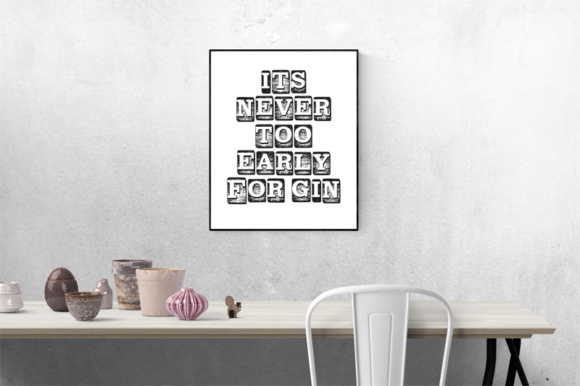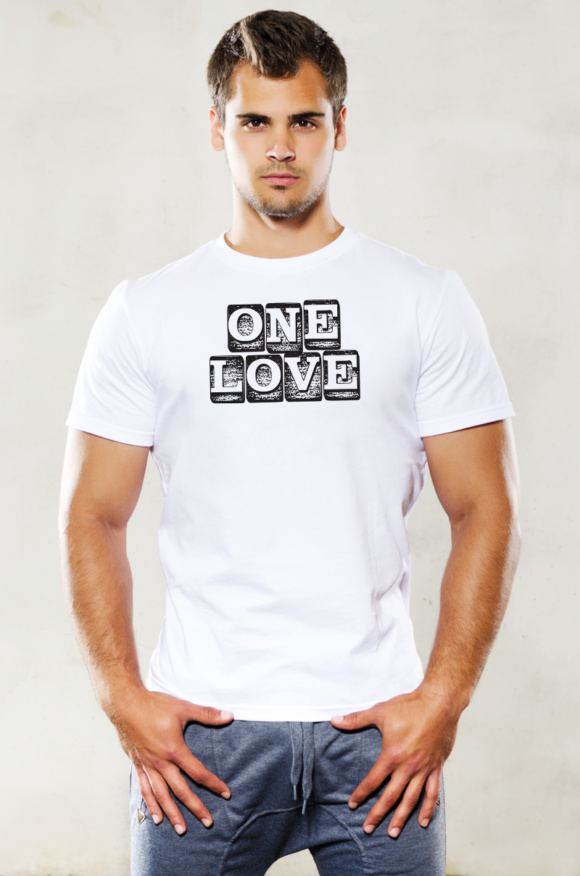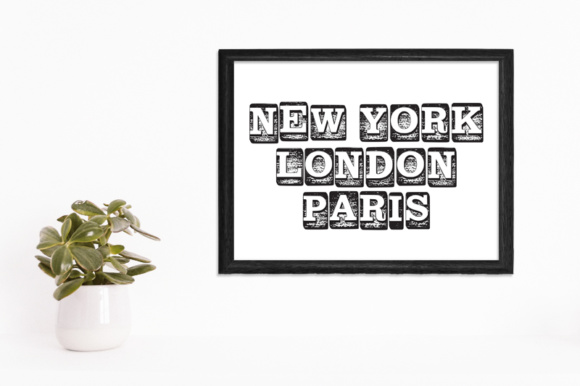
Introducing Blockletters Font: The Bold and Impactful Typeface Inspired by Printers Fonts
Are you looking for a font that makes a statement? Do you want to add a touch of vintage flair to your designs? Look no further than Blockletters Font, a bold and impactful typeface that is influenced by traditional printers fonts. With its rough and inky texture, Blockletters is perfect for creating eye-catching posters, logos, and other visual materials that demand attention.
The Inspiration Behind Blockletters
Blockletters Font draws inspiration from the classic printers fonts of the past, with a modern twist. The font’s blocky, chunky letters are reminiscent of the bold and sturdy typefaces used in vintage posters and advertisements. The rough, inky texture of Blockletters adds a layer of authenticity to your designs, giving them a tactile, hand-crafted feel that is sure to resonate with your audience.
Key Features of Blockletters Font
- Bold and Impactful Design: Blockletters Font is designed to make a statement. Its bold, chunky letters are perfect for creating eye-catching headlines and titles that demand attention.
- Rough and Inky Texture: The font’s rough, inky texture adds a layer of authenticity to your designs, giving them a tactile, hand-crafted feel.
- Vintage Flair: Blockletters Font is perfect for creating designs with a vintage feel. Its classic, traditional look is reminiscent of the bold and sturdy typefaces used in vintage posters and advertisements.
- Perfect for Posters and More: Blockletters Font is ideal for creating posters, flyers, brochures, and other visual materials that require a bold and impactful typeface.
Uses for Blockletters Font
Blockletters Font is a versatile typeface that can be used in a variety of design applications. Here are some ideas to get you started:
- Posters and Flyers: Use Blockletters Font to create eye-catching posters and flyers that demand attention.
- Logos and Branding: Blockletters Font is perfect for creating bold and impactful logos and branding materials.
- Vintage-Style Designs: Use Blockletters Font to create designs with a vintage feel, such as retro-style posters, advertisements, and packaging.
- Headlines and Titles: Blockletters Font is ideal for creating bold and attention-grabbing headlines and titles.
Tips for Using Blockletters Font
Here are some tips for getting the most out of Blockletters Font:
- Use it Boldly: Blockletters Font is designed to make a statement, so don’t be afraid to use it boldly. Experiment with large font sizes and bold colors to create eye-catching designs.
- Mix it with Other Fonts: Blockletters Font pairs well with other fonts, so don’t be afraid to experiment with different combinations. Try pairing it with a clean and simple sans-serif font for a bold and modern look.
- Play with Texture: Blockletters Font has a rough, inky texture that adds a layer of authenticity to your designs. Experiment with different textures and patterns to add depth and interest to your designs.
Blockletters Font is a bold and impactful typeface that is perfect for designers and crafters looking to add a touch of vintage flair to their designs. With its rough and inky texture, blocky letters, and classic look, Blockletters is ideal for creating eye-catching posters, logos, and other visual materials that demand attention. Whether you’re a seasoned designer or just starting out, Blockletters Font is a great addition to your font library.